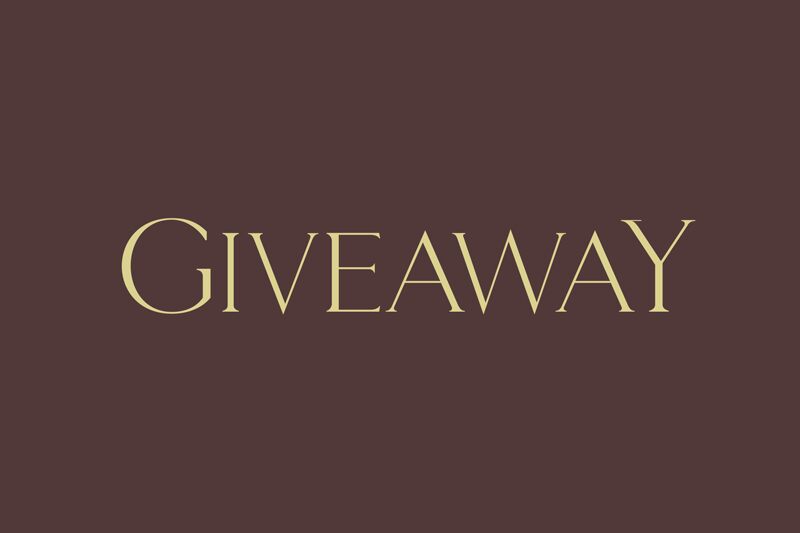
Giveaway
Giveaway font by Sensatype Studio is a light serif font that transports a calm and sophisticated feeling. Classic letters in different heights appear with thin condensed lines that combine to present an elegant text for the reader. Plus, as the characters softly connect in their well-calculated positions, this professional collection offers a gentle look like no other out there.
Choose this resource for visually appealing covers, brochures, and magazines. It can also be easily used for stunning artwork related to book covers, posters or greeting cards. Giveaway works well on luxury packaging designs including those of perfumes and beauty products.